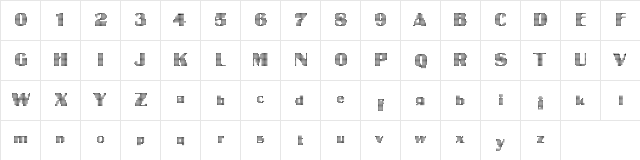
Intellecta Digital Regular
Design Context for Intellecta Digital Typeface
Intellecta Digital channels digital-age aesthetics through its sharp, structured letterforms — ideal for brands that want to signal innovation.